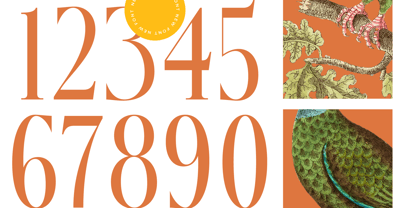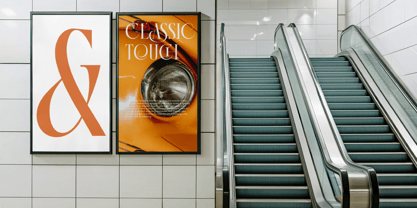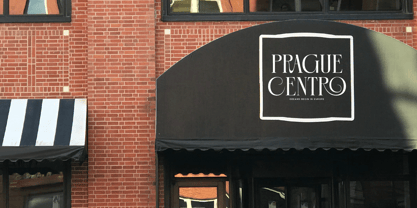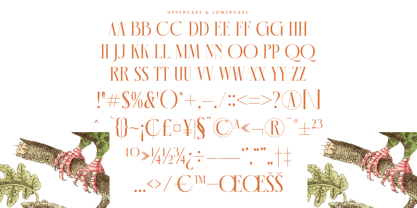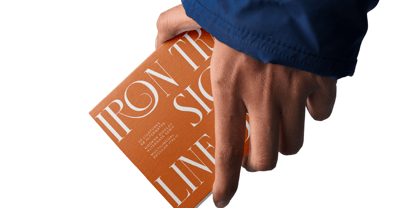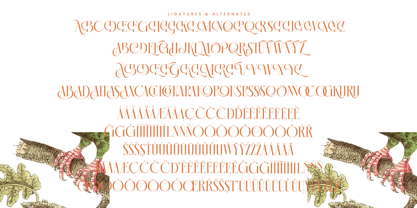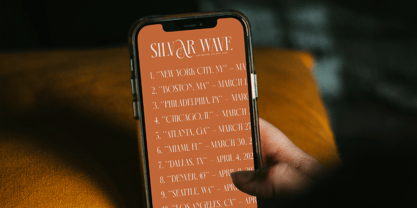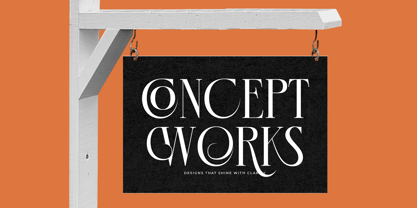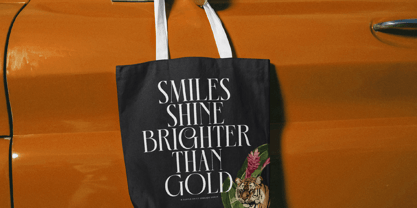
Mecoka Groove
The Mecoka Groove Font Family was designed by Heru Utama Putra and published by Timelesstype Studio. Mecoka Groove contains 2 styles and family package options. More about this family
Mecoka Groove - Modern Display Alternate Serif , from Timelesstype .Co , Suitable for any projects such as: logos, branding projects, homeware designs, product packaging, mugs, quotes, posters, shopping bags, t-shirts, book covers, name card, invitation cards, greeting cards, label, photography, watermark, special events, and all your other luxury and beautiful projects that need a Luxury Serif taste.